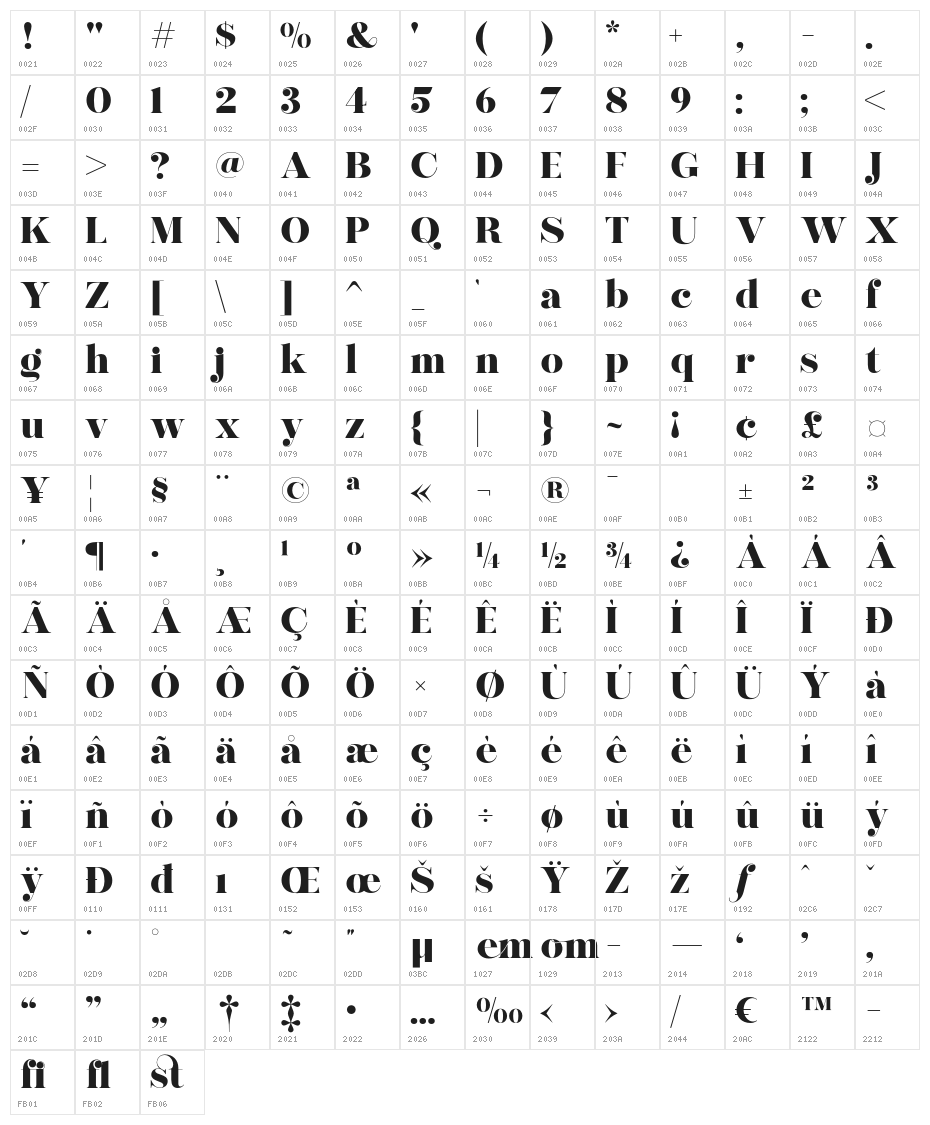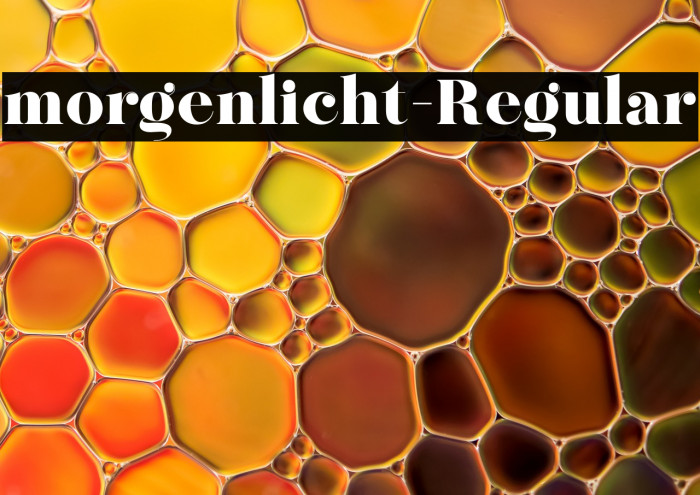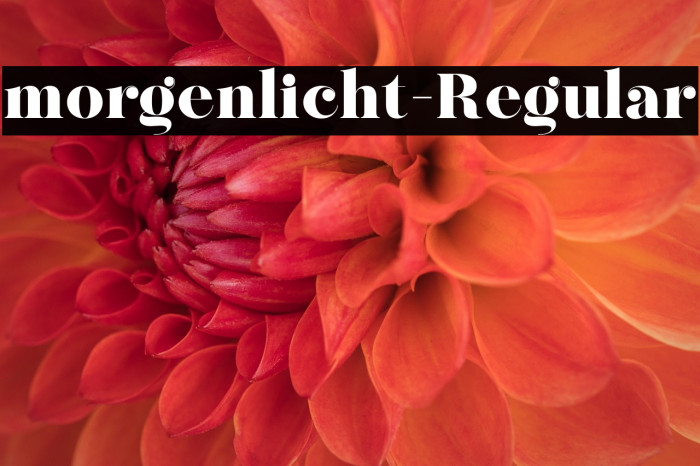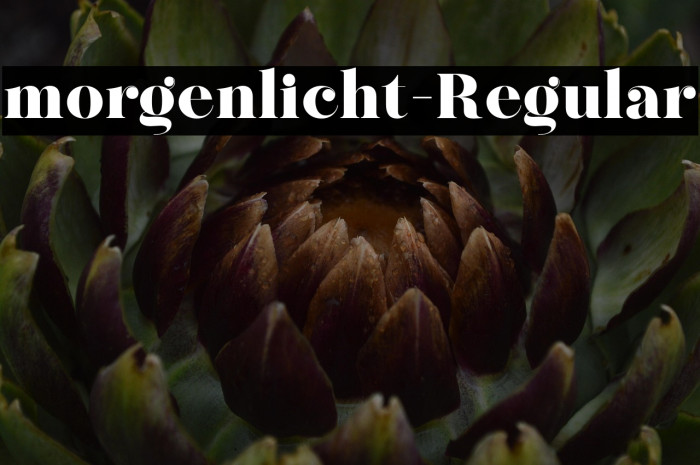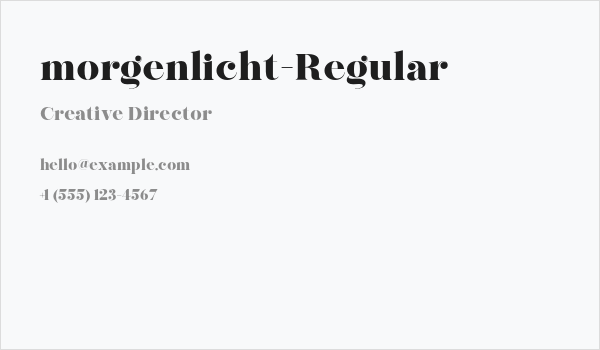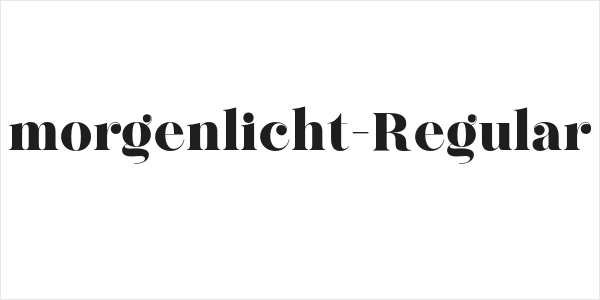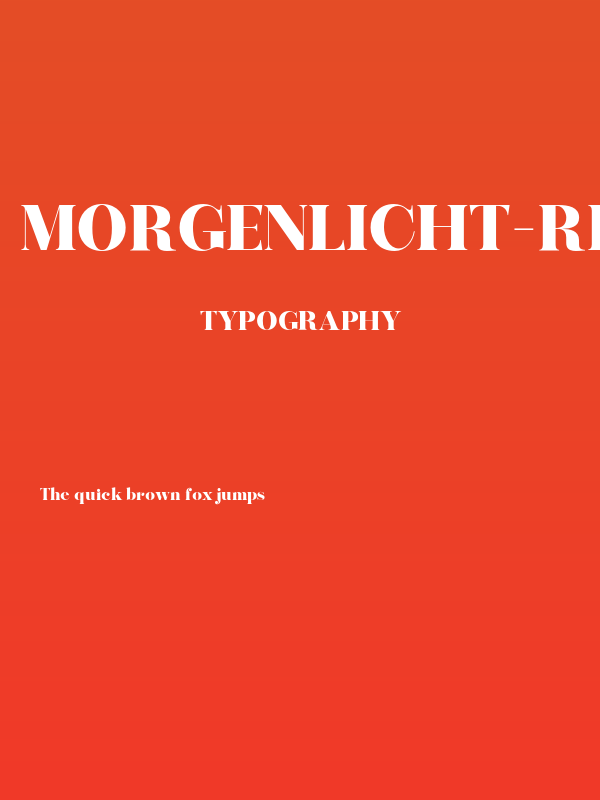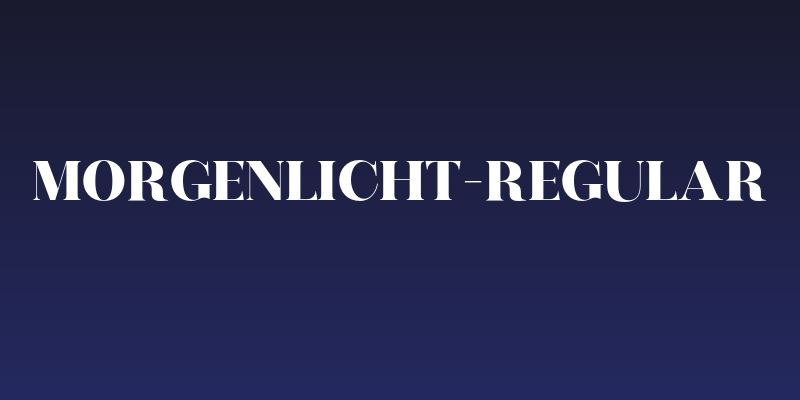
morgenlicht-Regular Font
morgenlicht-Regular Description
This font features a bold and striking design with high contrast between thick and thin strokes, giving it a dramatic and elegant appearance. The uppercase letters are characterized by sharp serifs and a strong vertical emphasis, while the lowercase letters maintain a consistent style with distinctive curves and terminals. The numerals are equally bold, ensuring readability and impact. Special characters are designed with the same attention to detail, making them suitable for a variety of uses. Overall, this font combines traditional serif elements with a modern twist, making it versatile for both classic and contemporary designs.
| Use Case | Headlines, Logos, Editorial design |
| Proposed Projects | Ideal for editorial design, luxury branding, high-end packaging, and sophisticated invitations. |